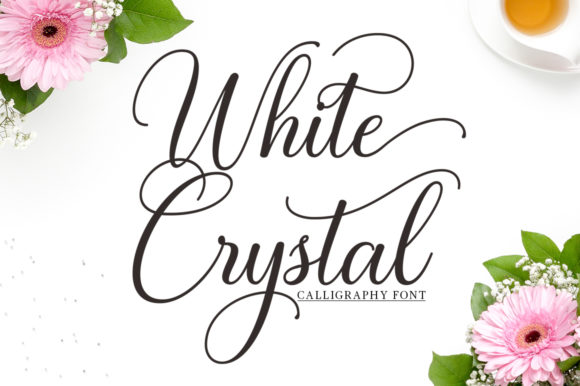
Step into a realm of visual enchantment where White Crystal Script Font reigns supreme, a calligraphy masterpiece that dances across your designs with its captivating grace. Experience the allure of this modern script font as it transforms your creative visions into timeless works of art.
White Crystal dances with a varying baseline, creating an enchanting visual melody that draws eyes and captivates hearts. Each letter, meticulously crafted, boasts smooth lines and delicate curves that intertwine harmoniously. The result is a symphony of elegance and sophistication that elevates your designs to new heights of beauty.
Unleash the charm of handwritten elegance in your logos, branding, invitations, and social media posts. Adorn your marketing materials with White Crystal's timeless allure, enticing your audience with a touch of classic finesse. Let this font speak volumes, conveying your messages with a unique, unforgettable voice.
Dive into a world of creative possibilities, where White Crystal becomes your trusted companion. Its versatility knows no bounds, seamlessly adapting to any design style, from vintage charm to modern minimalism. Let your imagination run wild as you explore the limitless potential of this captivating font.